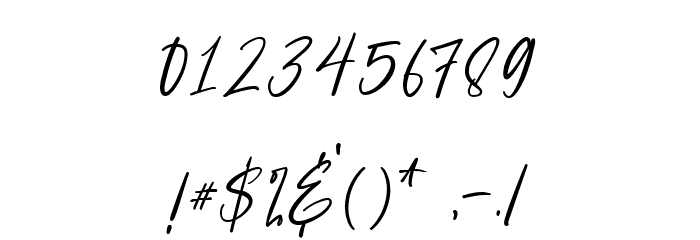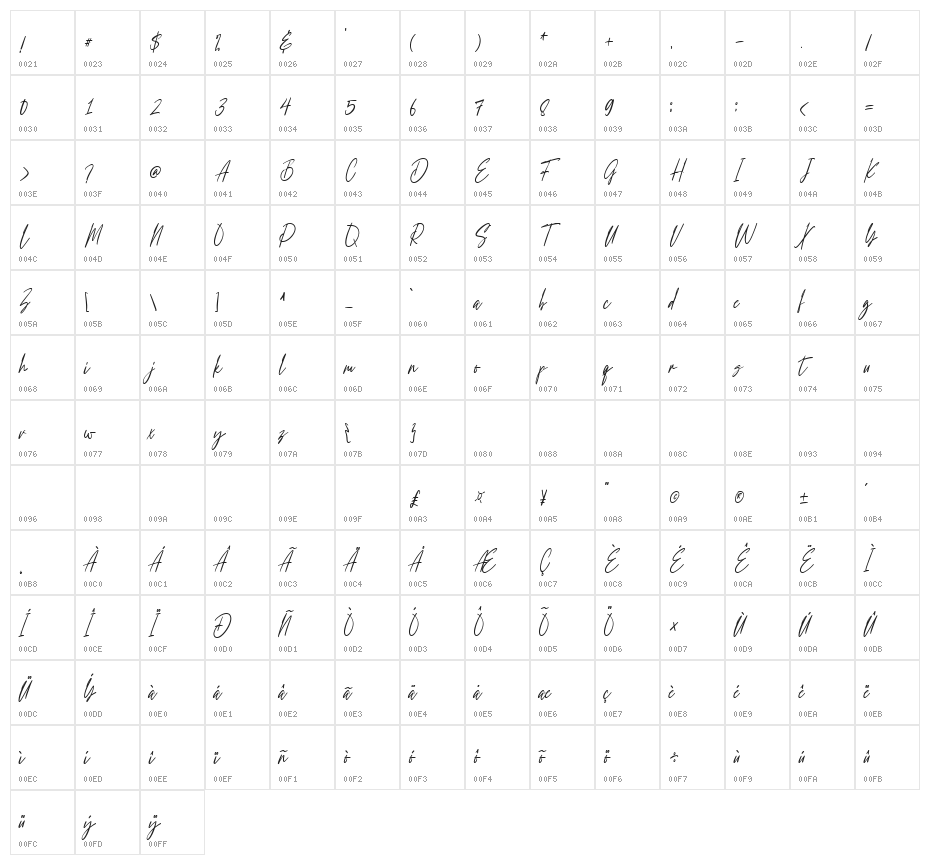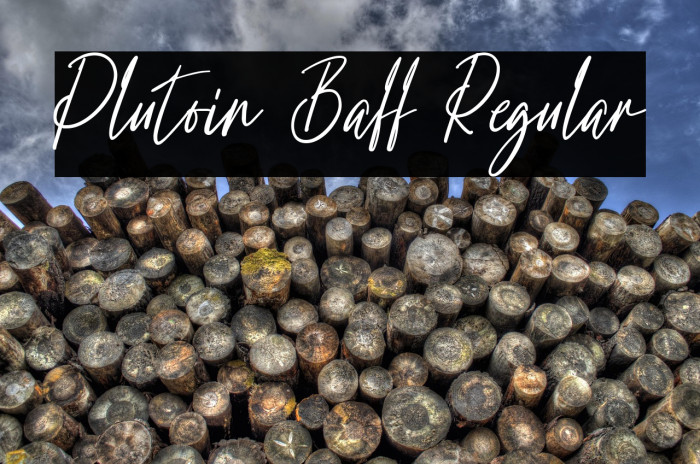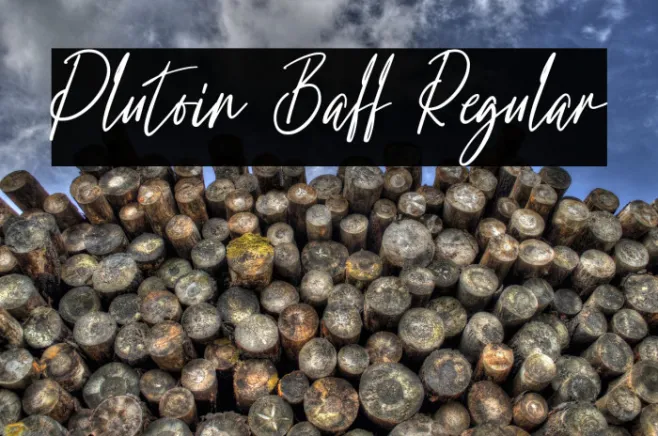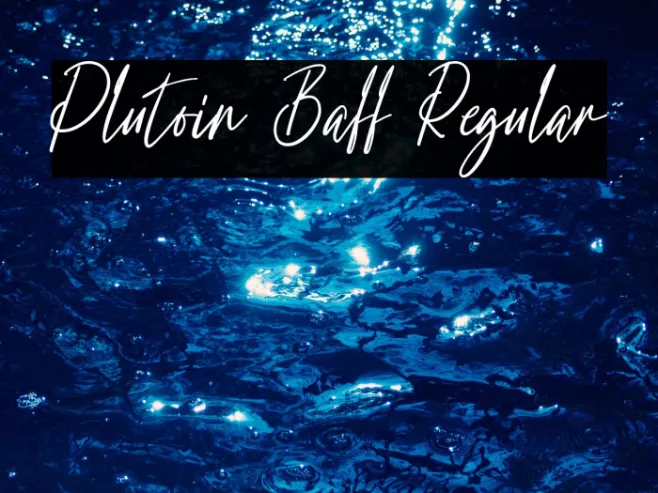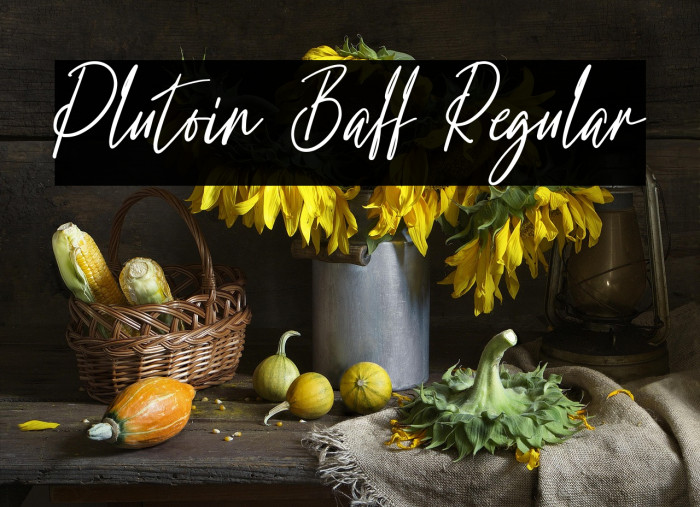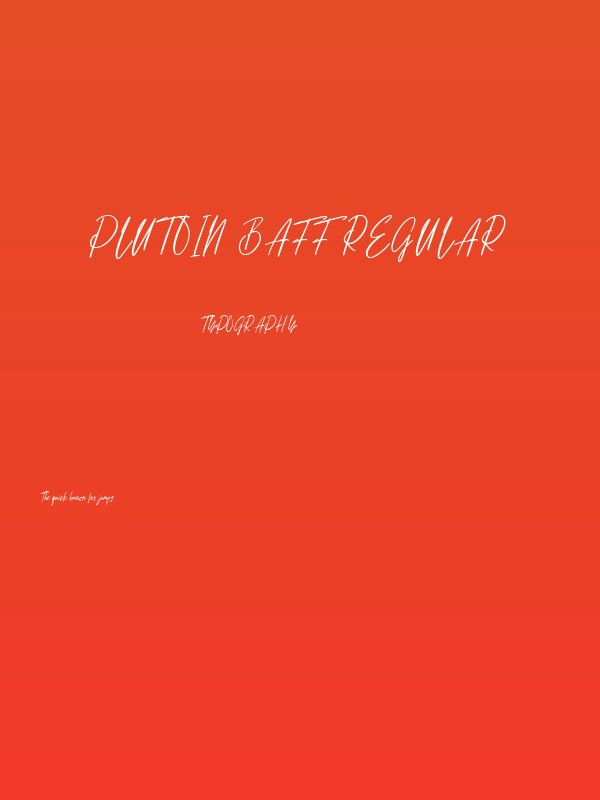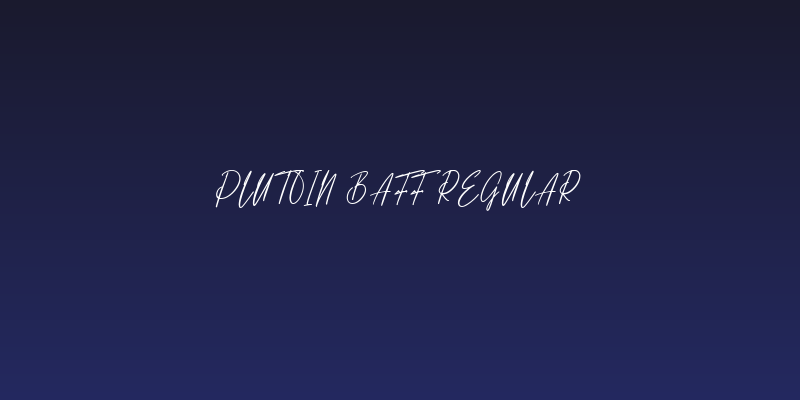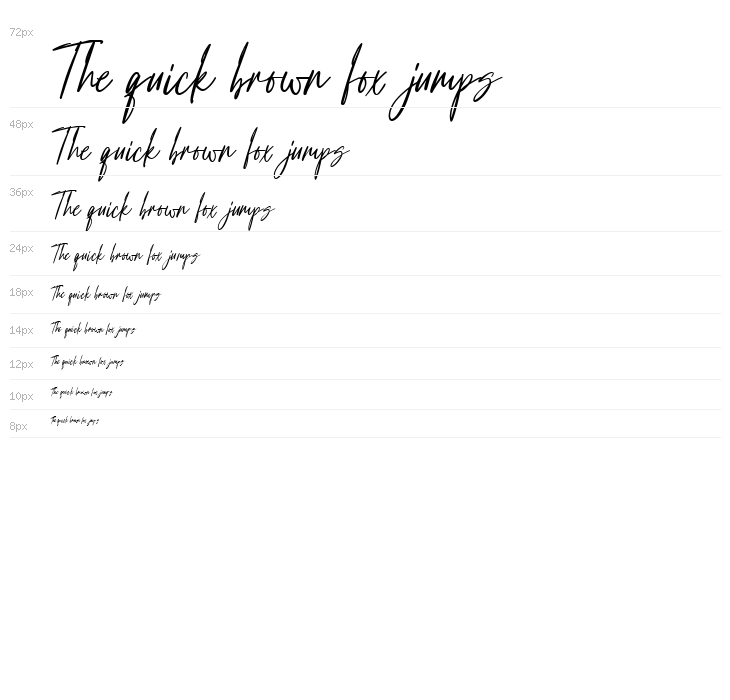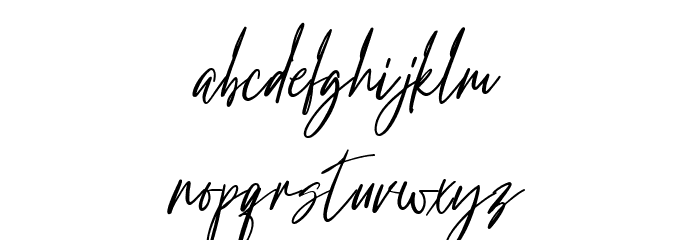
Plutoin Baff Regular Font
Plutoin Baff Regular Description
This font exudes a dynamic and energetic feel with its fluid, handwritten style. The letters are elegantly slanted, giving a sense of motion and spontaneity. Each character is crafted with varying stroke thickness, adding a lively contrast that enhances readability while maintaining an artistic flair. The uppercase letters are bold and prominent, while the lowercase letters maintain a consistent flow, making it suitable for creative and expressive designs. The numerals and special characters are equally stylish, ensuring a cohesive look across all text elements.
Use CaseLogos, Headlines, Invitations
Proposed ProjectsIdeal for wedding invitations, greeting cards, branding projects, and social media graphics.